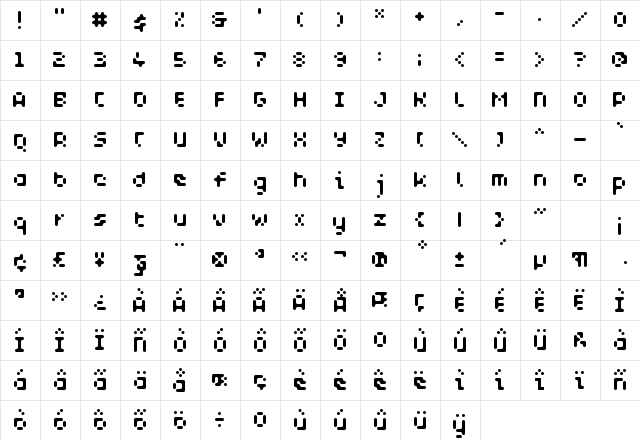
WC_AquaBlues_Bta Bold
Design Context for WC_AquaBlues_Bta Typeface
WC_AquaBlues_Bta is a composed and adaptable typeface that performs quietly and consistently across a wide range of design contexts. The heavy weight commands attention and anchors typographic hierarchies.